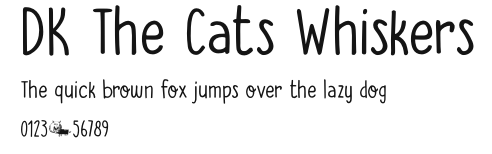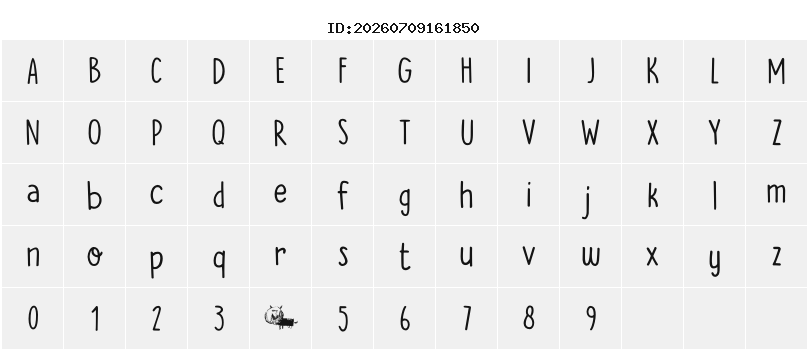
• Font Name: DK The Cats Whiskers
• Designer: David Kerkhoff
• Manufacturer: David Kerkhoff
About DK The Cats Whiskers.otf
DK The Cats Whiskers.otf is a modern, elegant sans-serif font designed for ultimate readability and visual harmony. Perfect for branding, headlines, web design, and print materials.